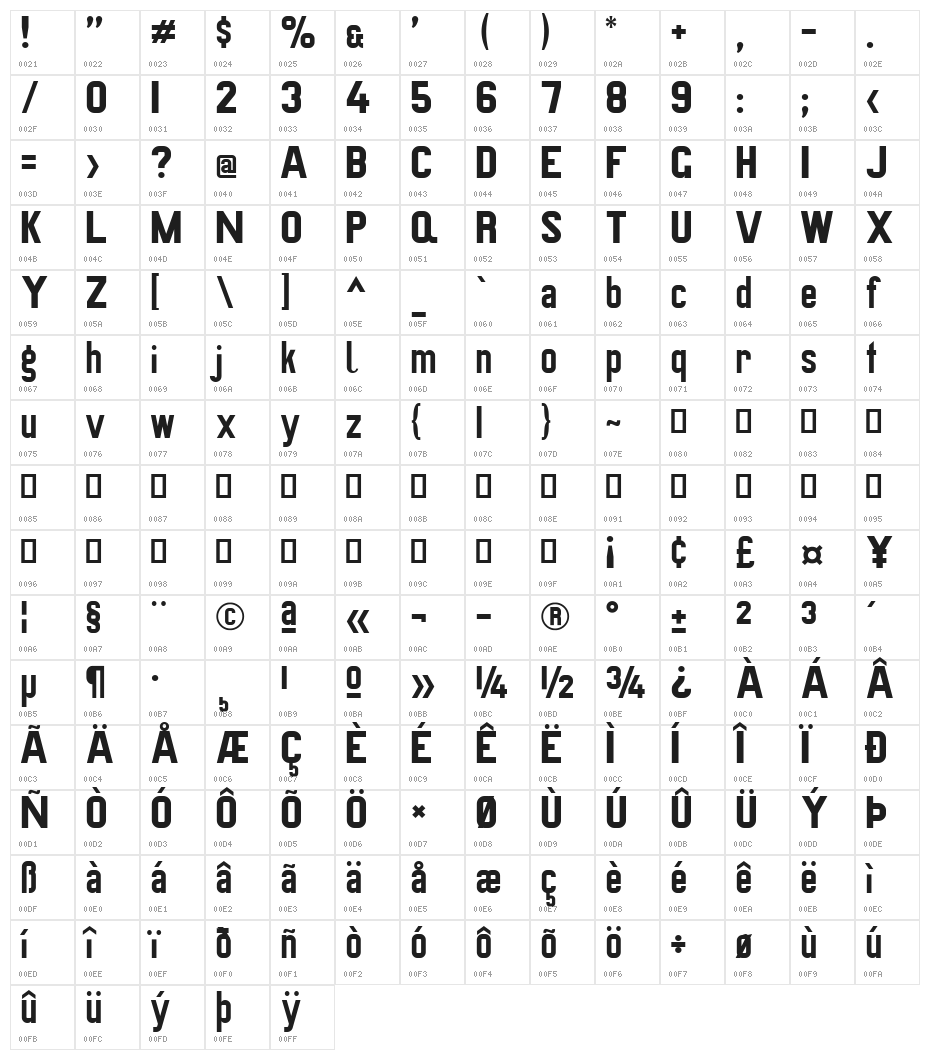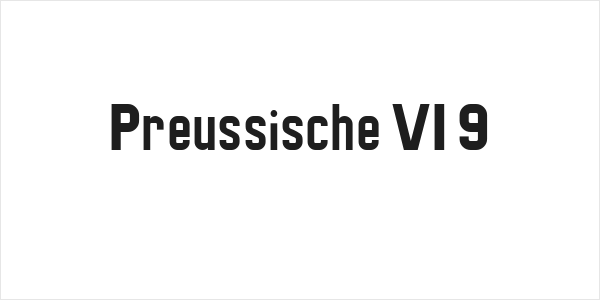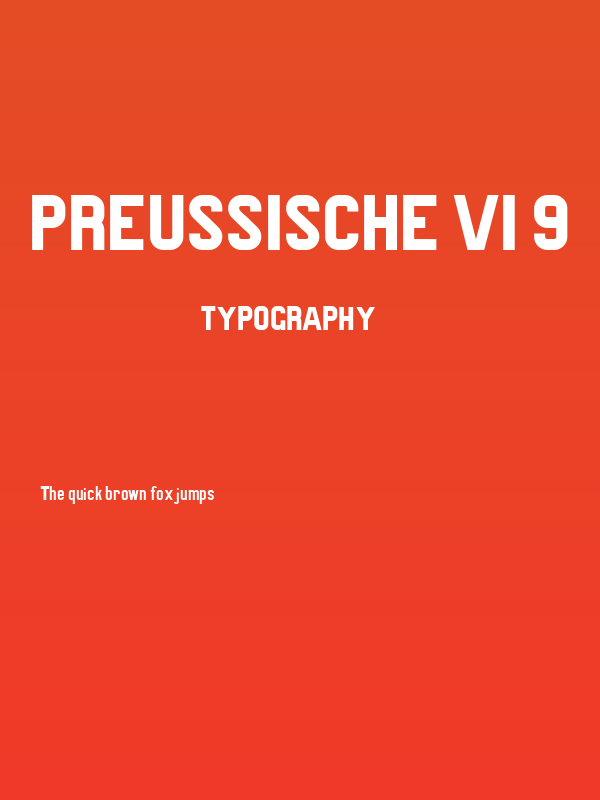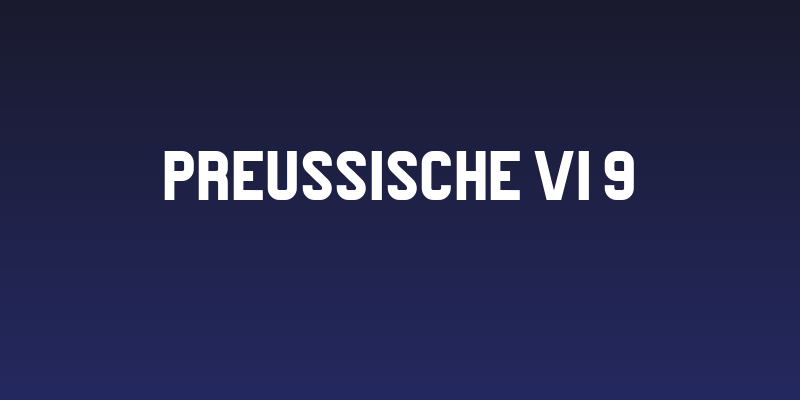
Preussische VI 9 Font
Preussische VI 9 Description
This typeface features bold, geometric letterforms with a strong presence. The uppercase letters are uniform in height, with a slightly condensed appearance, giving them a compact and powerful look. The lowercase letters maintain a consistent style, with rounded edges that soften the overall impact. The numerals are robust and align well with the uppercase letters, ensuring readability and balance. Special characters are designed to match the boldness of the alphabet, making them suitable for various applications. The font's clean lines and modern aesthetic make it versatile for both digital and print media.
| Proposed Projects | Ideal for branding, headlines, posters, and signage where a strong visual impact is desired. |